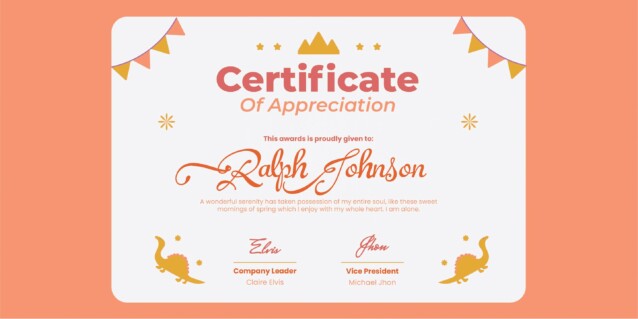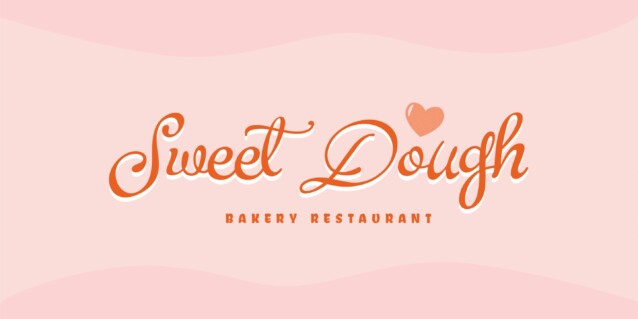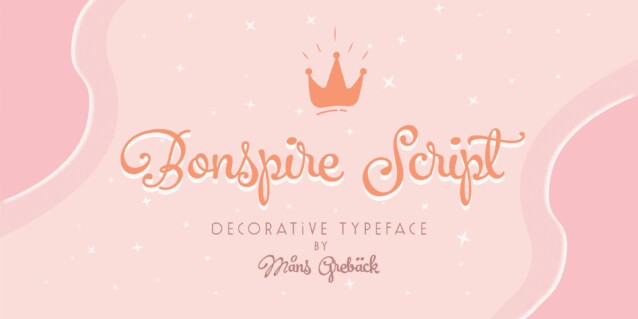
Bonspire Script Font
Bonspire Script Font is a feature-packed modern calligraphy font. Brimming with lively swashes and optimistic flair, Bonspire Script embodies the essence of movement and creativity. Its swirly strokes lend it an air of playful sophistication, making it equally suitable for heartfelt love letters or eye-catching advertisements. Its handwriting-inspired design gives it an approachable and personal feel, without tying it down to any particular gender or style. It has extensive lingual support, covering all Latin-based languages, from Northern Europe to South Africa, from America to South-East Asia. It contains all characters and symbols you’ll ever need, including all punctuation and numbers.